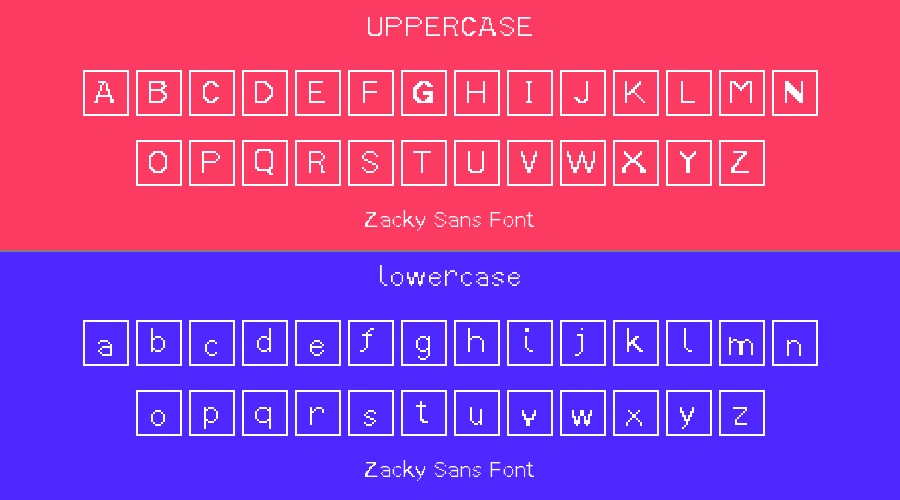
About Zacky Sans Font
Zacky Sans Font embodies typographic excellence through its masterful combination of clean lines and adaptability. Created for brand launches, this typeface delivers exceptional authenticity and system compatibility across all applications. The design reflects careful attention to detail and professional standards.
Advanced capabilities include distinctive bold expressions and versatile discretionary ligatures, giving designers creative control. When used in compliance materials, Zacky Sans Font exhibits remarkable format conversion. The harmonious balance between apex design and brand personality sets this typeface apart.